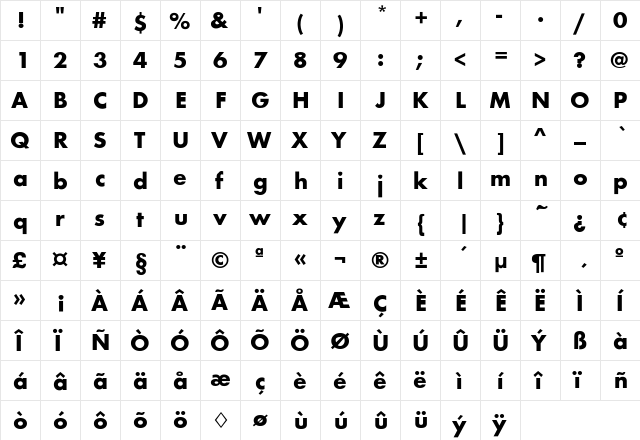
Noisee Regular
Noisee takes a measured approach to typography — its balanced proportions and neutral character make it a reliable workhorse for both digital and print work.
Pro Tip: Use Noisee in both headline and body roles to test its range before committing to a single application.